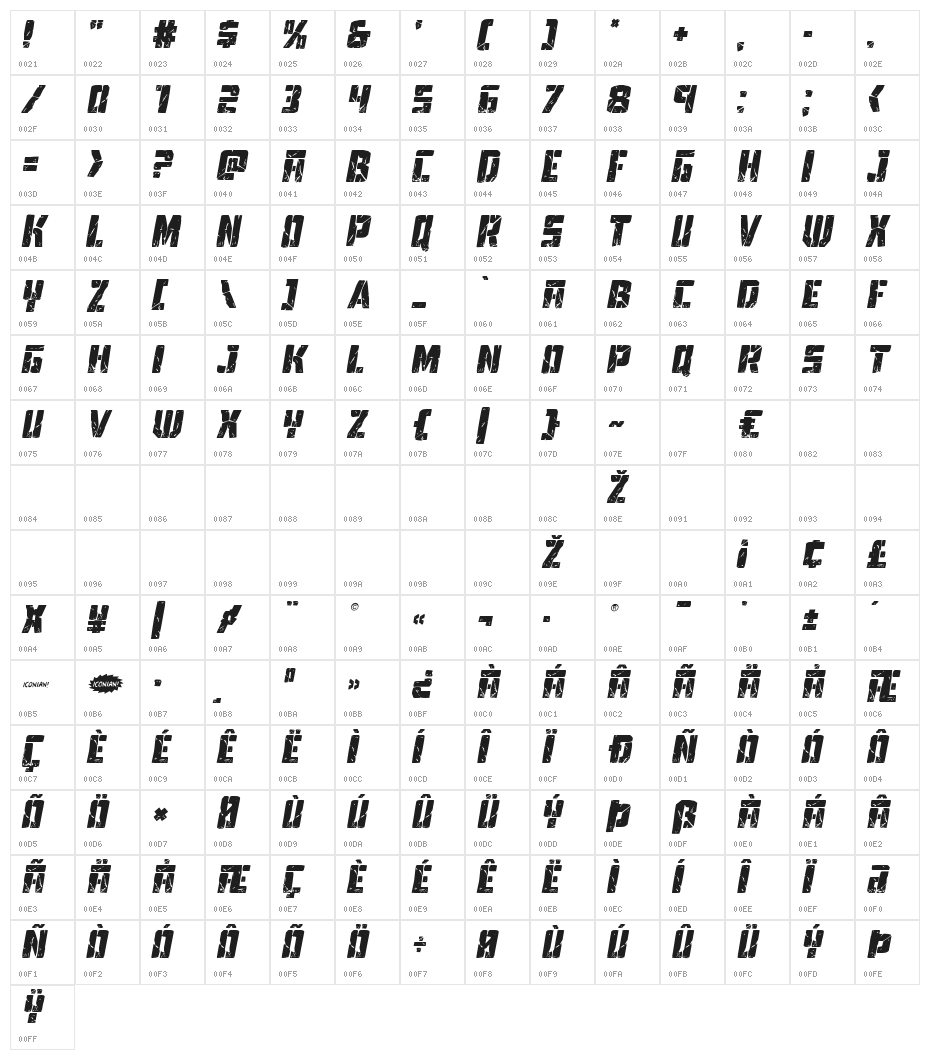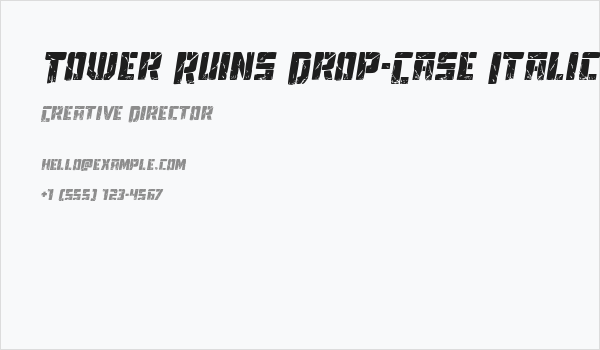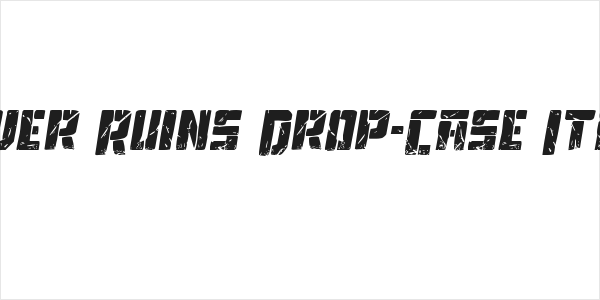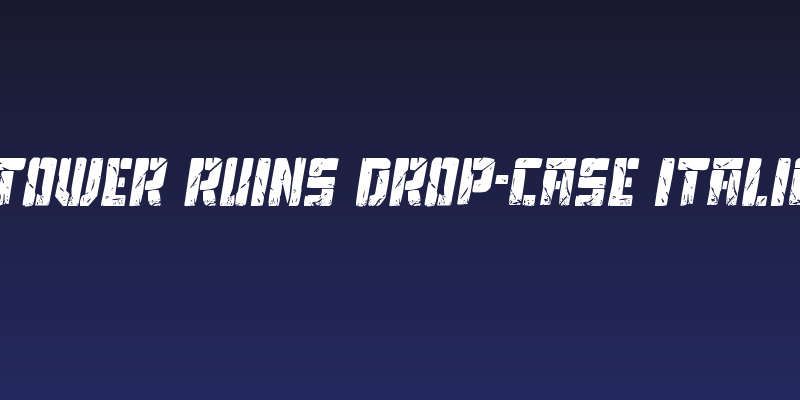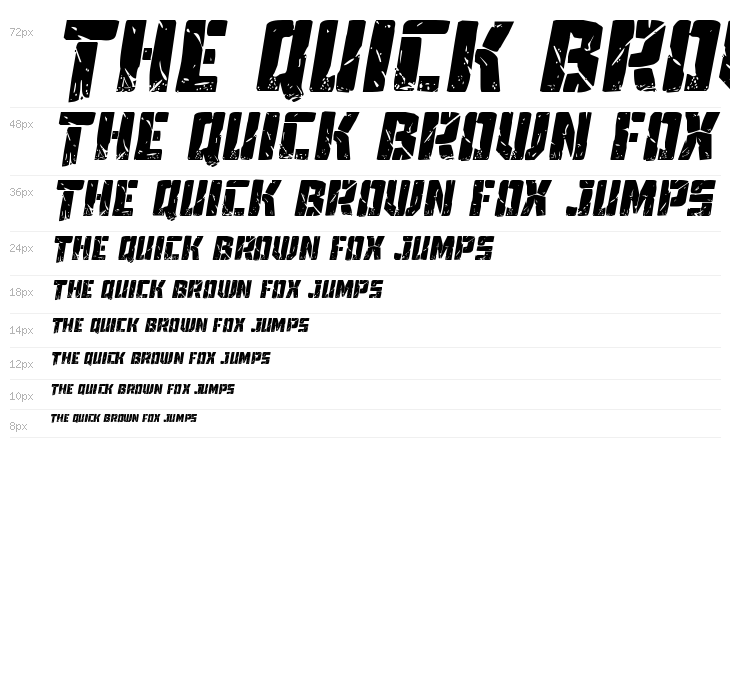
Tower Ruins Drop-Case Italic Font
Tower Ruins Drop-Case Italic Description
This font features a bold and rugged design, characterized by its distressed and fragmented appearance. The letters are heavily stylized with a rough texture that gives the impression of erosion or decay, making it ideal for projects that require a gritty, urban feel. The uppercase and lowercase letters maintain a consistent style, with sharp angles and a blocky structure. Numbers and special characters are equally bold, ensuring a cohesive look across all text elements.
| Proposed Projects | Ideal for posters, album covers, video game graphics, and any project needing a gritty, industrial aesthetic. |